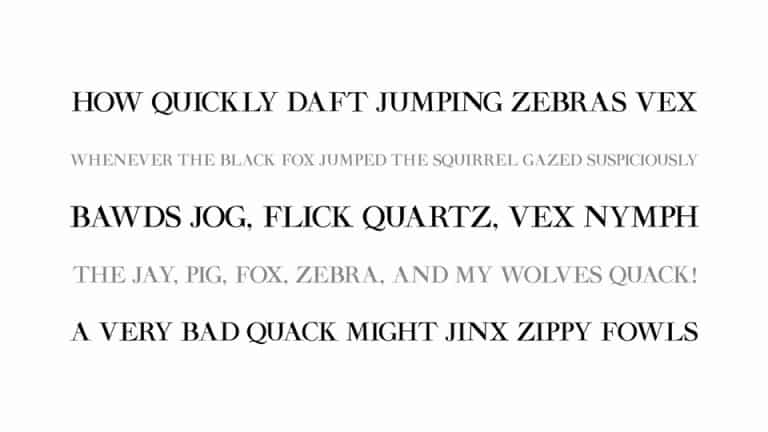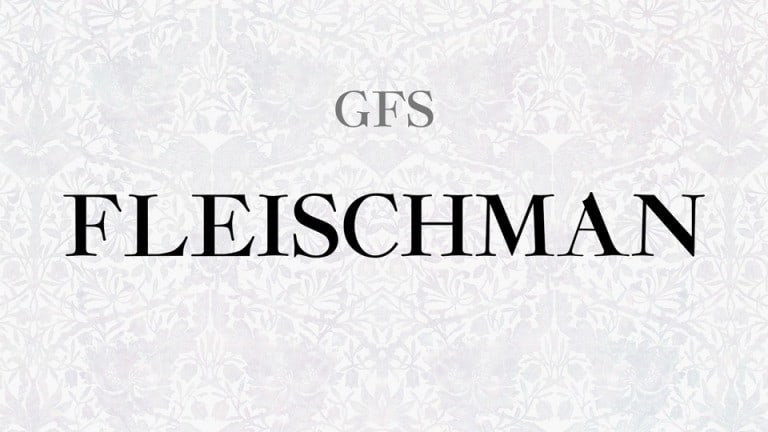
GFS Fleischman Serif Font is the perfect typeface for all your fun and minimalism designs. The main font file is equipped with ordinary characters. It’s designed and shared by Greek Font Society. This font is a contrast display serif typeface, based on a design by Johann Michael Fleishman, typecutter of the Dutch Enschedé foundry and follows the baroque style of the mid-18th century aesthetics.